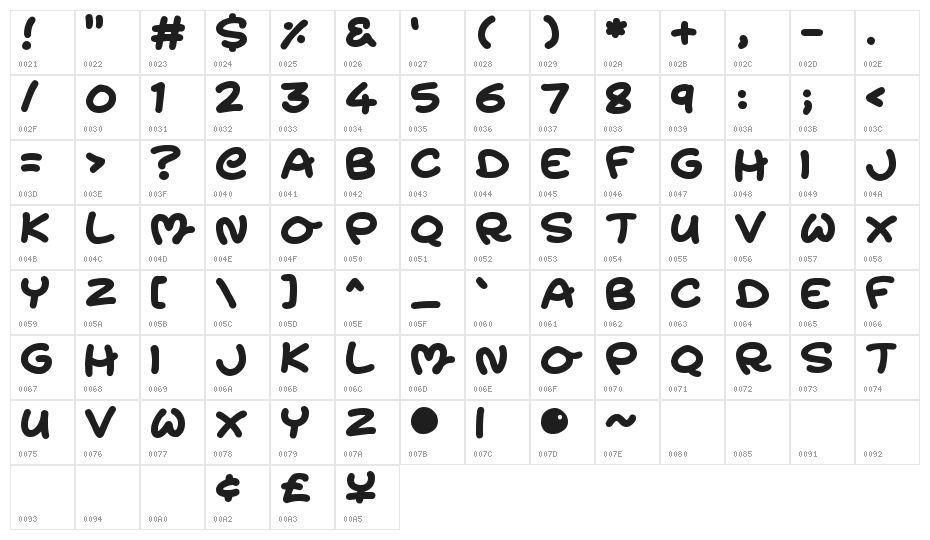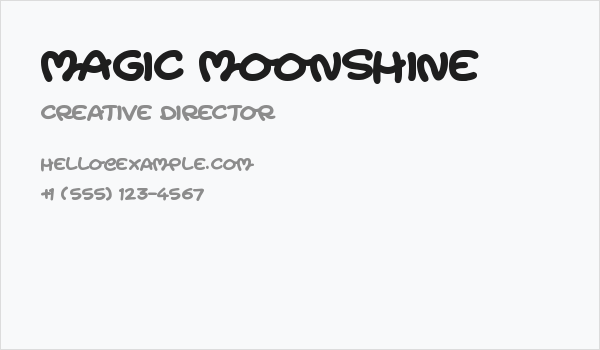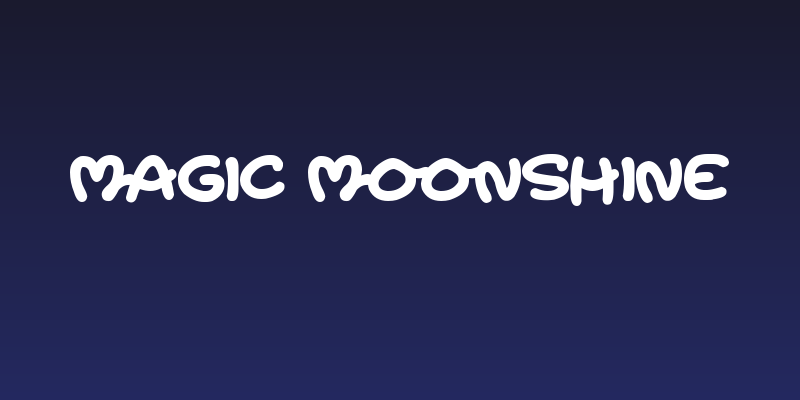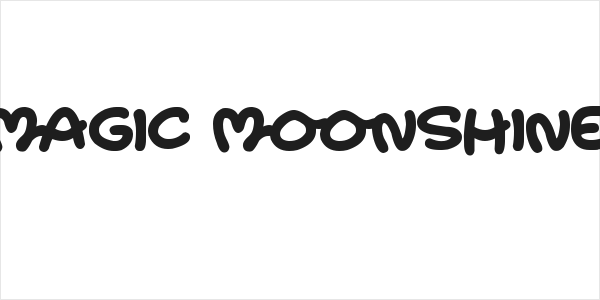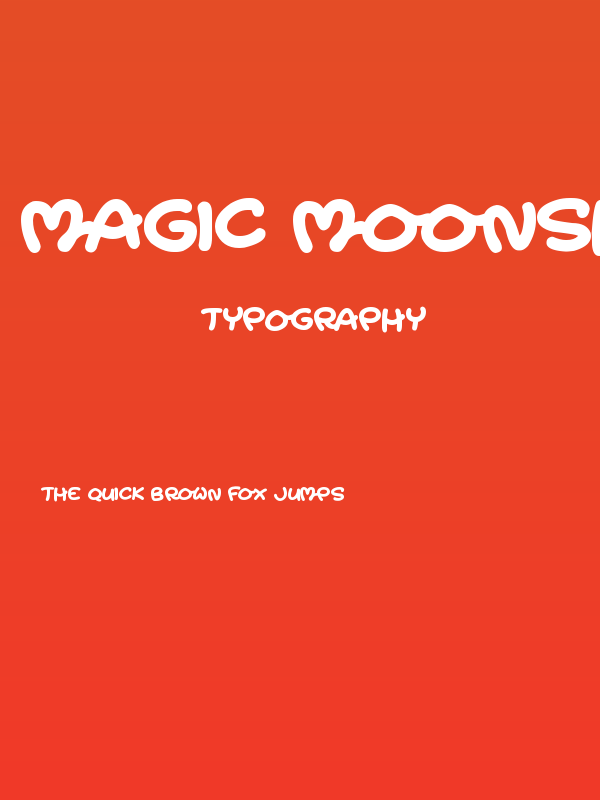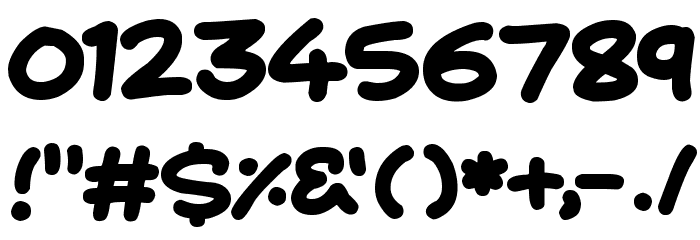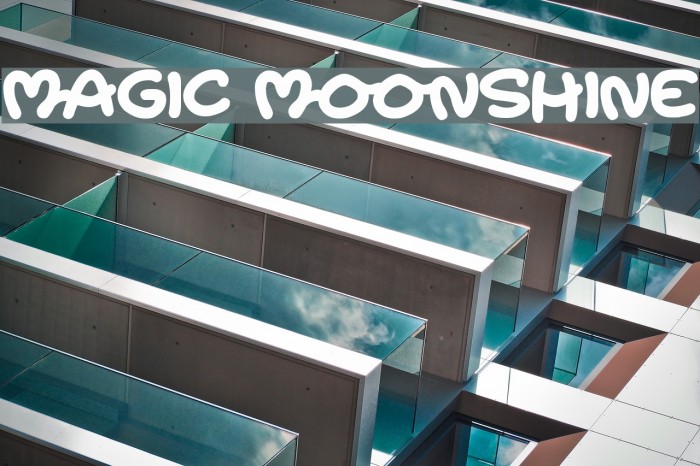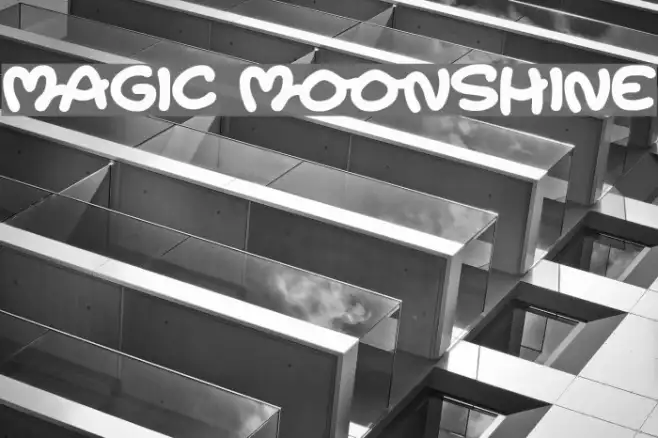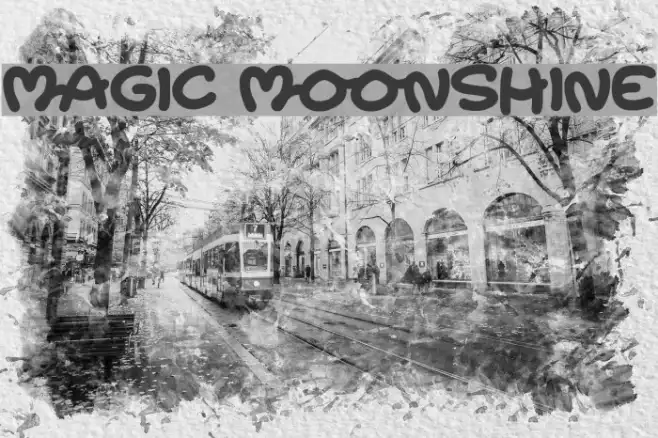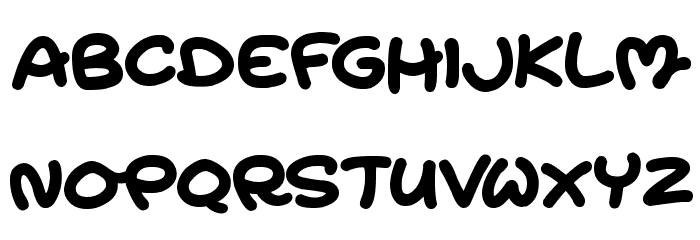
Magic Moonshine Font
Magic Moonshine Description
This playful and whimsical font features bold, rounded characters with a hand-drawn appearance. The letters are slightly irregular, giving them a friendly and approachable feel. The strokes are thick and consistent, contributing to a cohesive look across all characters. The font includes both uppercase and lowercase letters, as well as numbers and a variety of special characters. Its unique style makes it stand out, ideal for creative projects that require a touch of fun and personality. The overall design is reminiscent of doodles or comic book lettering, making it suitable for informal and lighthearted contexts.
| Overall Style | Whimsical, Playful |
| Proposed Projects | Ideal for children's books, comic strips, playful branding, and casual invitations. |